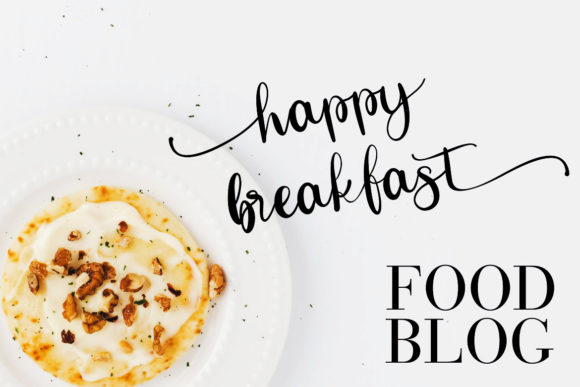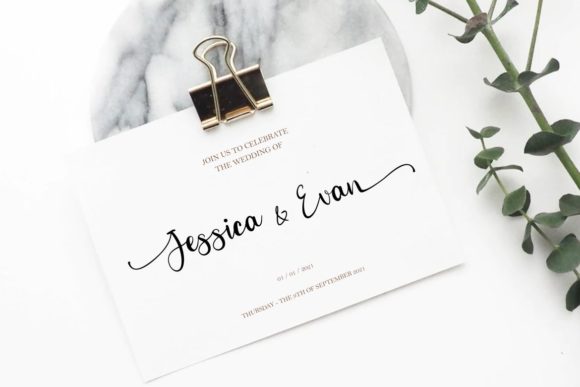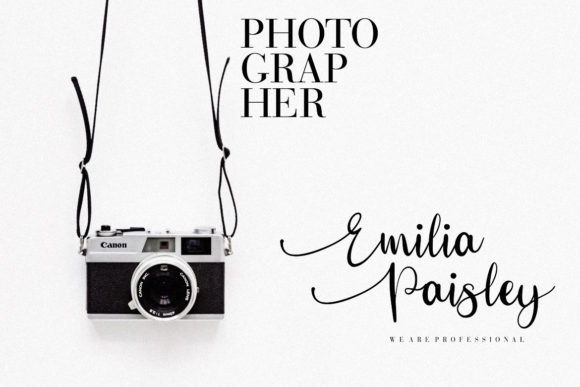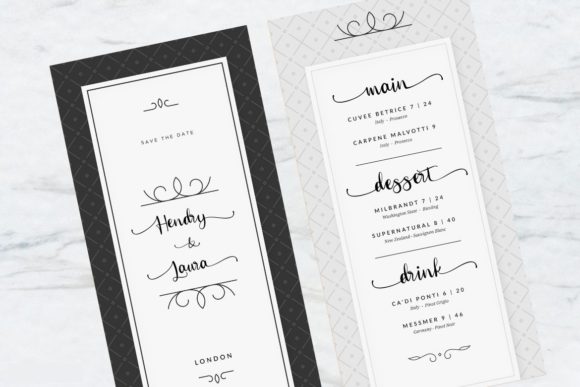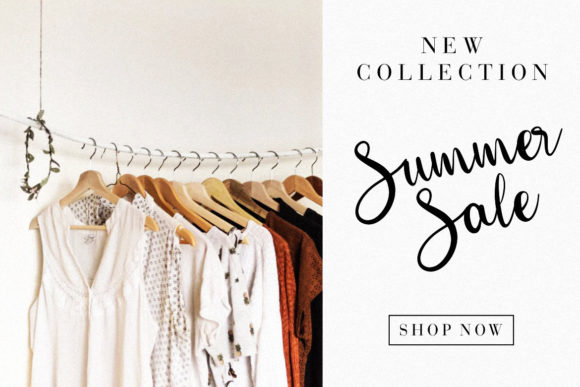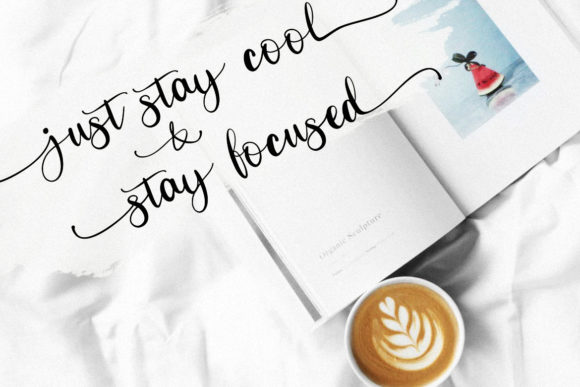
Introduction to Secillia Font
As a designer, have you ever stumbled upon the perfect font that elevates your creative project from good to great? For me, that moment happened when I discovered the Secillia Font. Its unique blend of modern and elegant styles has been a game-changer in my design process.
With its many alternative styles and swashes, the Secillia Font is the perfect design resource for anyone looking to add a touch of sophistication to their work. Whether you’re working on a high-quality brochure, a website, or a social media campaign, this font is sure to make your design stand out.
Key Features of Secillia Font
- Designed to be highly legible with a clear and modern aesthetic
- Includes a range of font styles and weights for versatility
Honest Review: Secillia Font
I recently came across the Secillia Font, and I must say, it’s been a great addition to my design resource library. The high quality of this font is undeniable, making it perfect for any creative project that requires a touch of elegance.
- High-quality design with detailed lines and curves
- Comes in a range of weights and styles, allowing for versatility in your design
One thing to note is that the font may not be suitable for very large-scale projects due to its intricate details, which can become pixelated when enlarged.
Overall, I’m thoroughly impressed with the Secillia Font. Its unique design and high quality make it a valuable addition to any designer’s library. If you’re looking for a font to add a touch of sophistication to your creative project, I highly recommend giving the Secillia Font a try.
Tips for Getting the Most Out of the Secillia Font
To get the most out of the Secillia Font, be sure to experiment with different font sizes, colors, and styles. You can also use the font in combination with other design elements, such as images and graphics, to create a unique and eye-catching design.
Common Use Cases for the Secillia Font
The Secillia Font is ideal for use in a variety of creative projects, including logos, social media graphics, presentations, and documents. The font